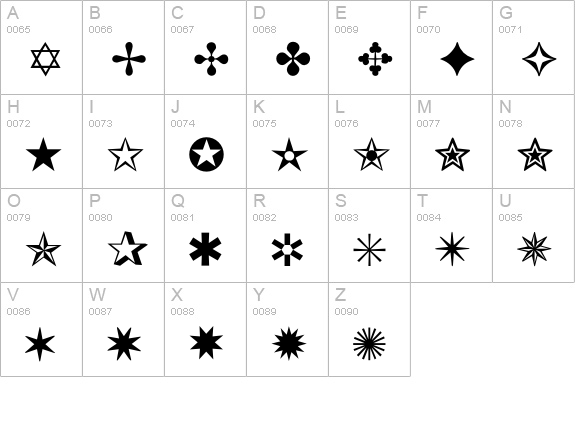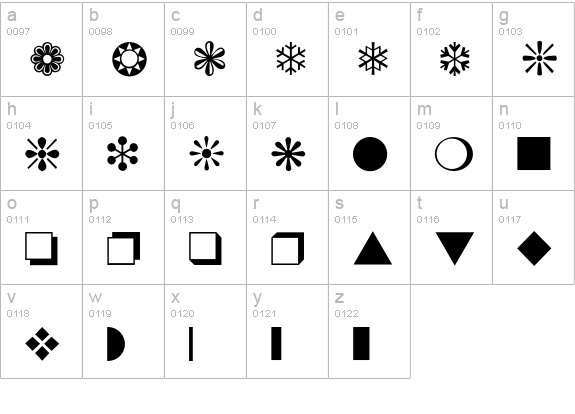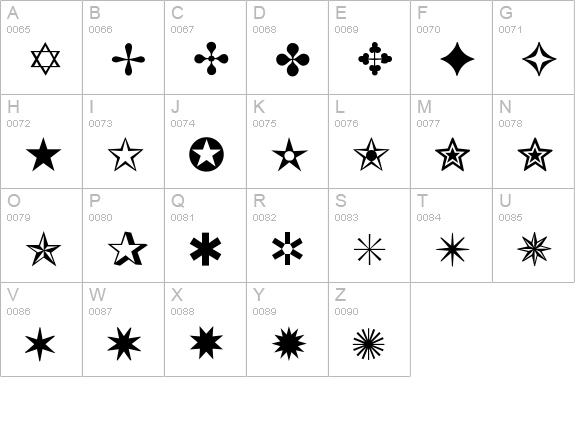
Nicesymbols font is a versatile and stylish typeface that brings a touch of elegance to any design project. With its unique symbols and characters, this font is perfect for adding a special touch to your creative work. Whether you are designing a logo, poster, or website, Nicesymbols font will help you stand out from the crowd. The best part is that Nicesymbols font is free to download at FontsMarket.com. This means that you can easily access this beautiful font and use it in your projects without any cost. Don't miss out on the opportunity to enhance your designs with Nicesymbols font - download it today and let your creativity shine!